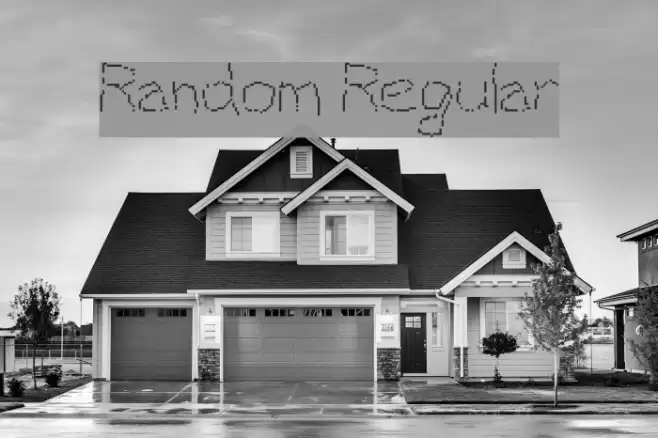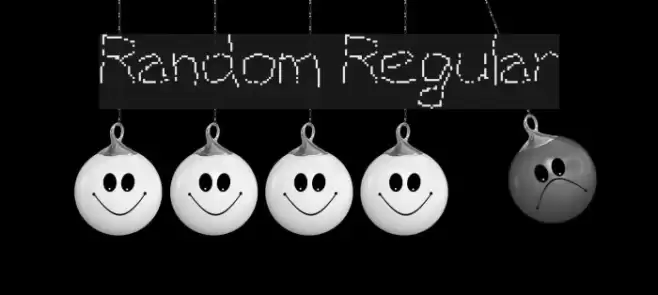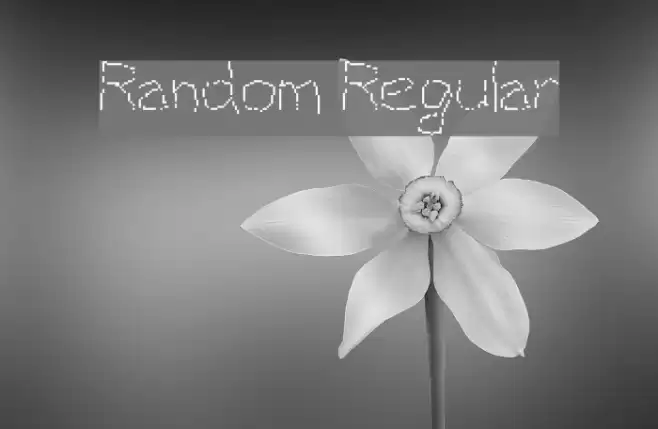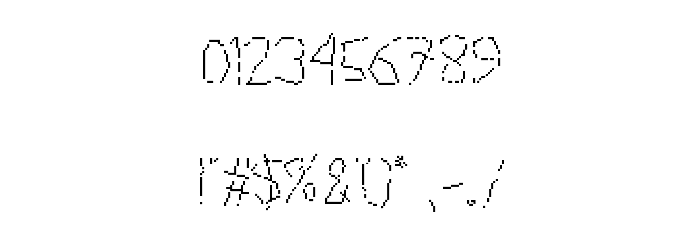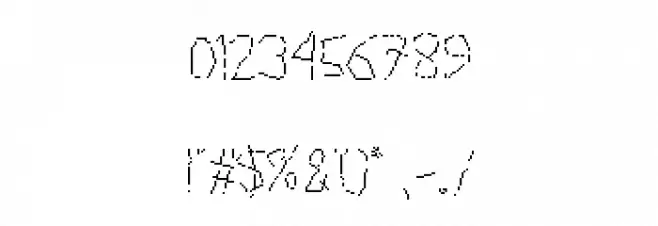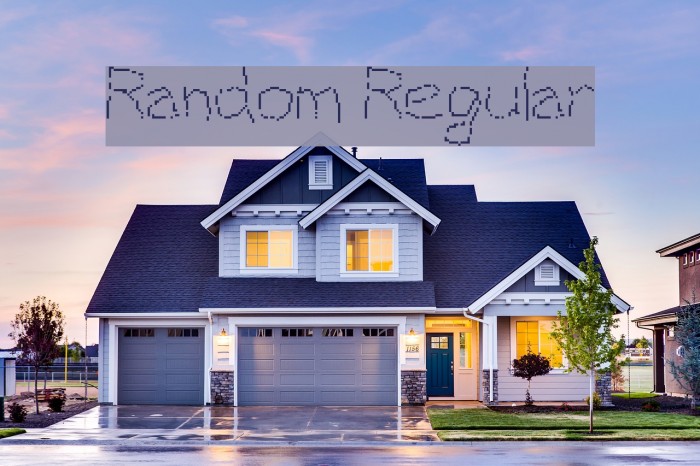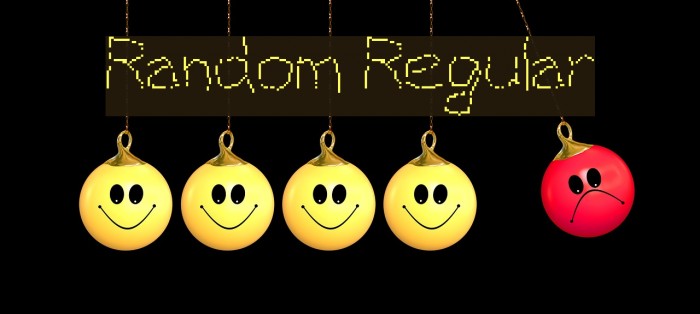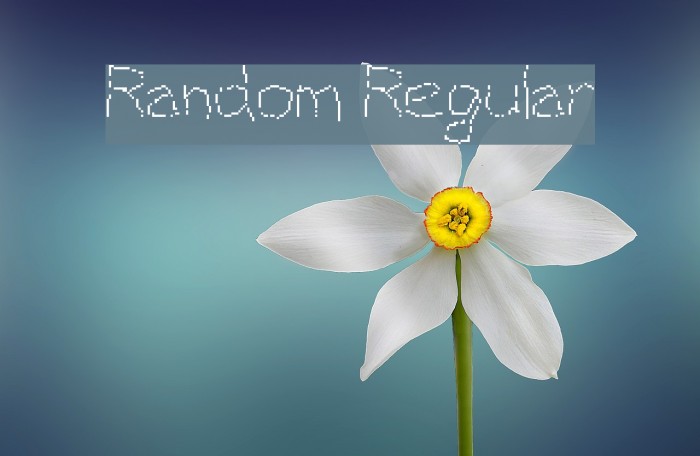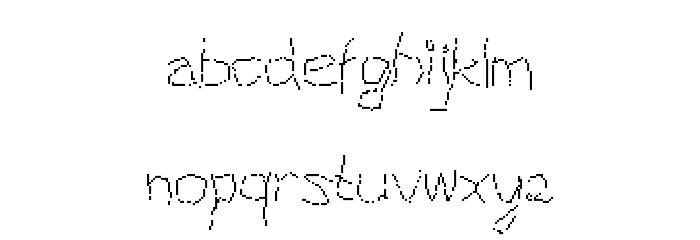
Random Regular Font
Random Regular Description
This font features a playful and whimsical design, characterized by its irregular, hand-drawn appearance. The letters are formed with a series of dots, giving it a unique, dotted outline style. It has a casual and informal feel, making it suitable for creative and artistic projects. The uppercase and lowercase letters maintain a consistent style, with a slight variation in size and shape that adds to its charm. The numerals and special characters follow the same dotted pattern, ensuring a cohesive look across all characters. This font is ideal for projects that require a touch of creativity and fun.
A playful, dotted outline font with a hand-drawn, whimsical style from Uncategorized fonts.
- Proposed Projects: Ideal for children's books, creative invitations, playful branding, and artistic posters.
- Overall Style: Whimsical, Playful, Artistic
- Use Case: Headlines, Creative projects, Artistic designs